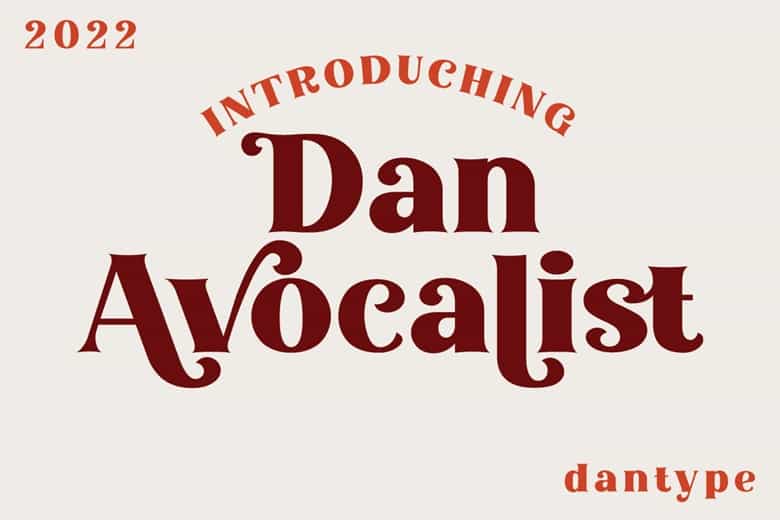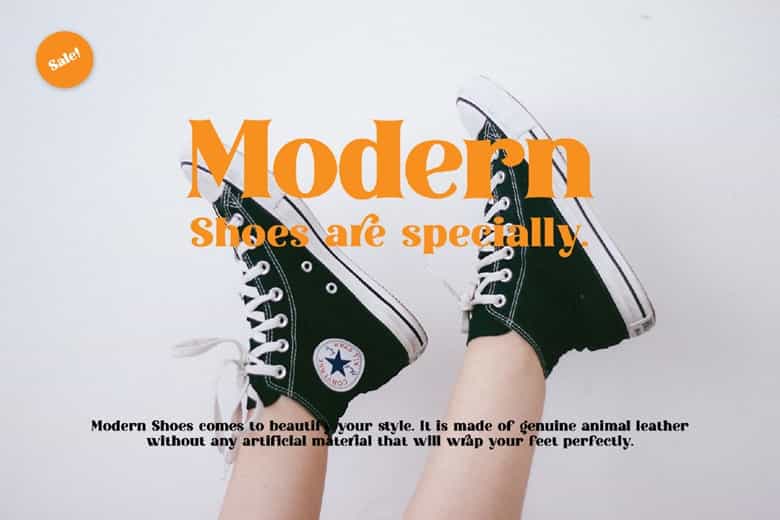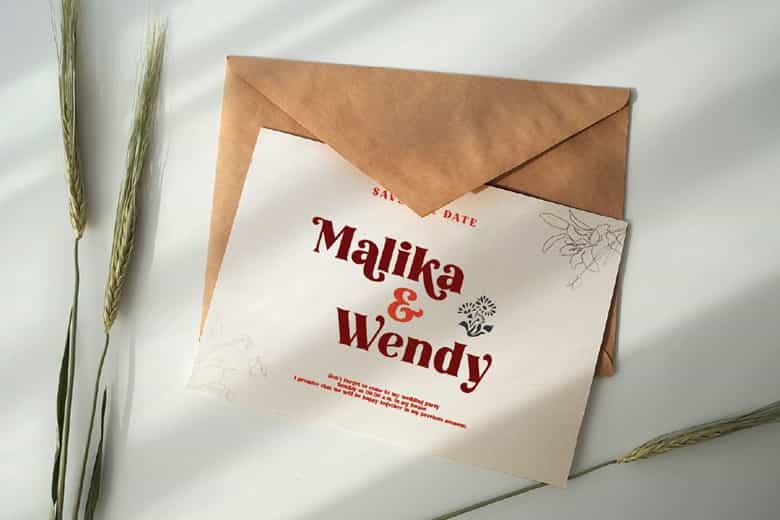
Avocalist is a modern display serif font. This font would suit photography, watermark, social media, advertisement, logos and branding, invitations, product design, labels and stationery, product packaging, special occasions, and the other projects.